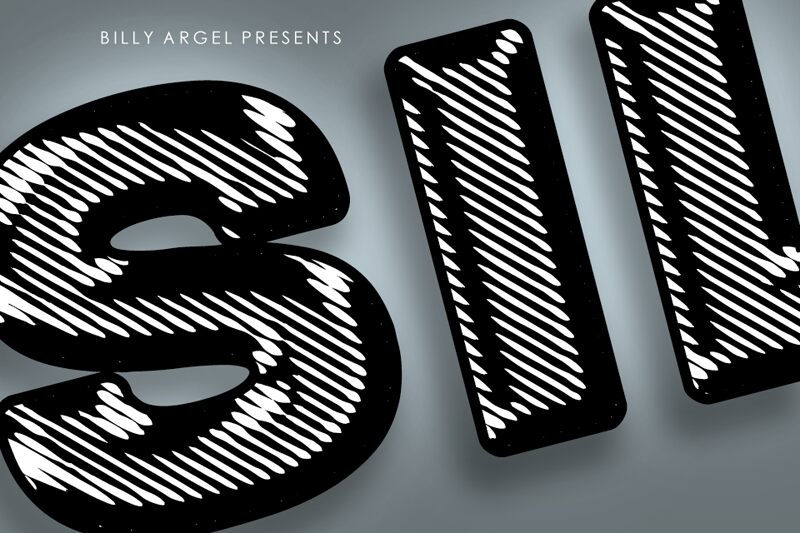
Silverado, crafted by the renowned Billy Argel Fonts, embodies a bold display with a decorative flourish that captures the lustrous allure of its namesake.
Its glossy, metallic finish and expanded width forge an unmistakable presence, making it an ideal choice for high-impact branding, attention-grabbing headers, and any project demanding a touch of silver sophistication.
The Silverado font is not just a typeface but an immediate statement piece that promises to elevate creative endeavors with its distinctive style and robust weight.